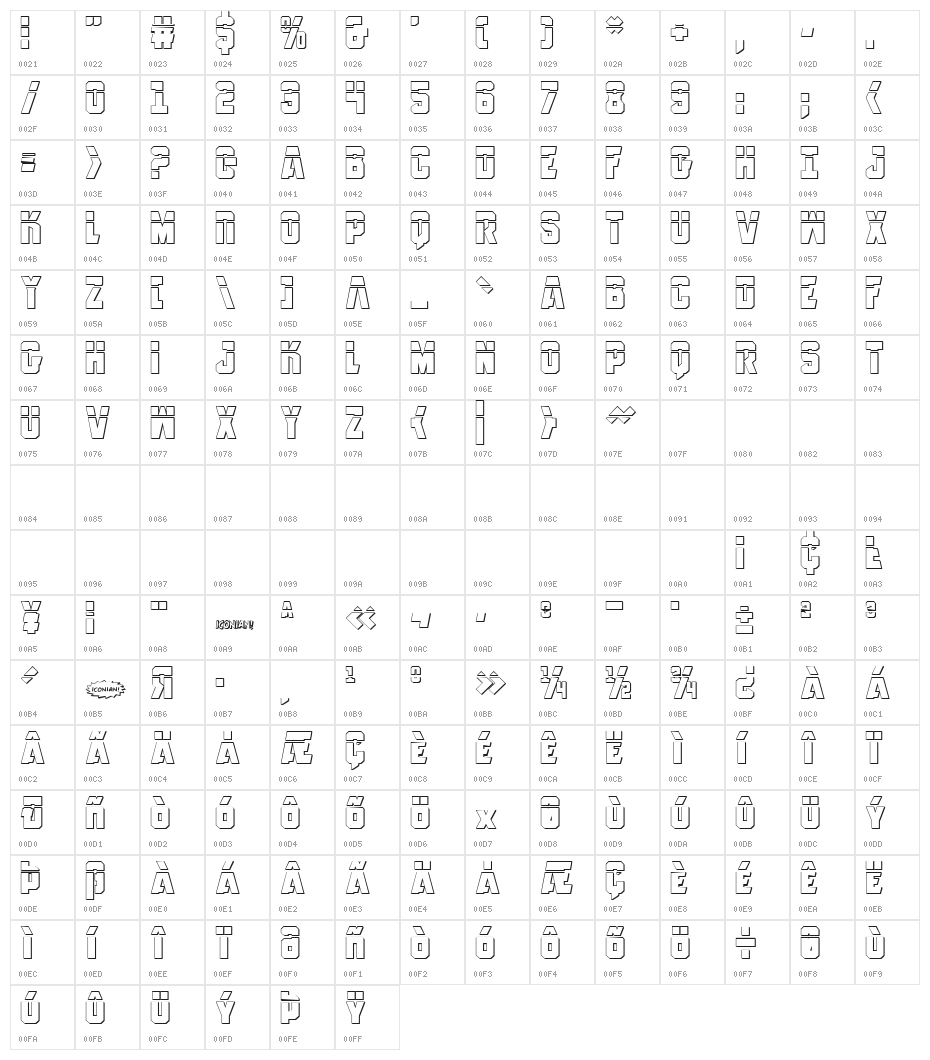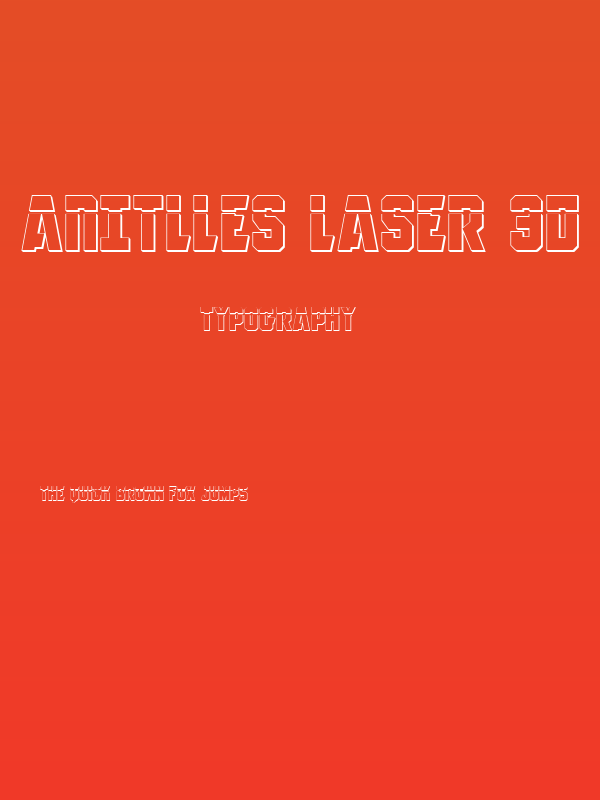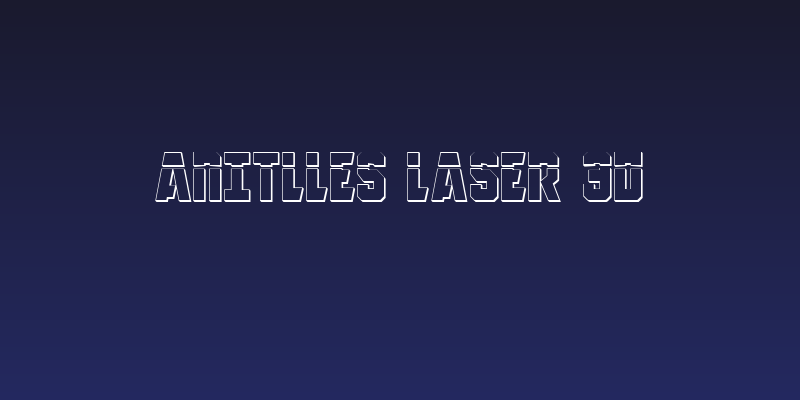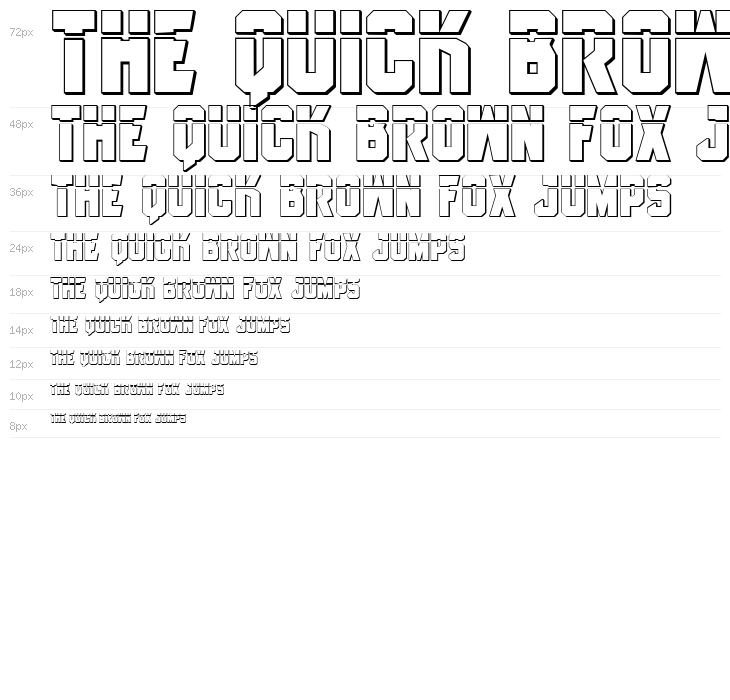
Anitlles Laser 3D Font
Anitlles Laser 3D Description
This font features a bold, three-dimensional design with a futuristic and industrial feel. Each character is outlined with a thick border, creating a striking and impactful appearance. The geometric shapes and sharp angles give it a modern and edgy look, making it ideal for projects that require a strong visual presence. The uppercase and lowercase letters maintain a consistent style, while the numbers and special characters complement the overall design. The font's unique structure makes it stand out, perfect for attention-grabbing headlines or logos.